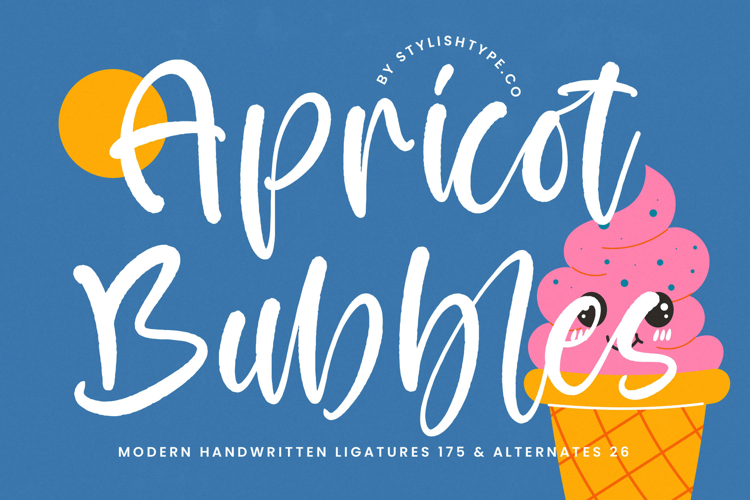
Apricot Bubbles - Modern Handwritten Font
Apricot Bubbles - Modern Handwritten Font. This energetic and authentic brush script captures the effortless joy of genuine handwriting, featuring bold, fluid strokes that command attention. It is the definitive choice for designers seeking a typeface that is both highly memorable and expressively casual.